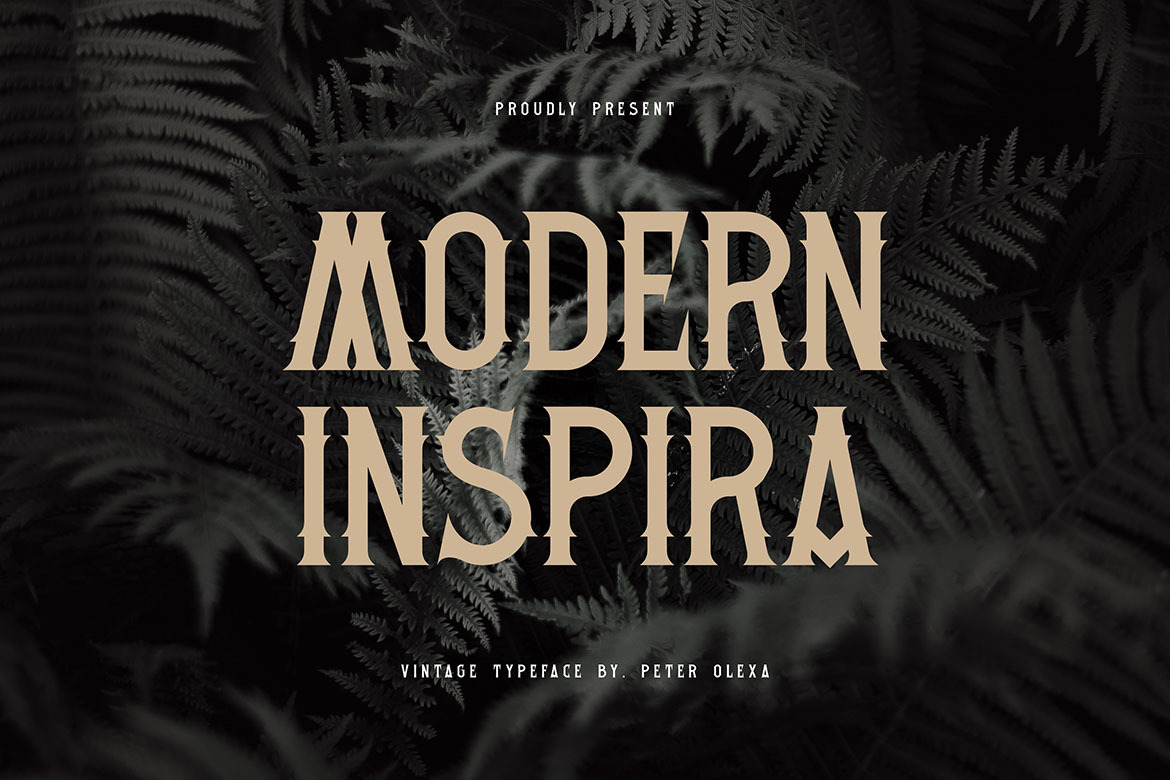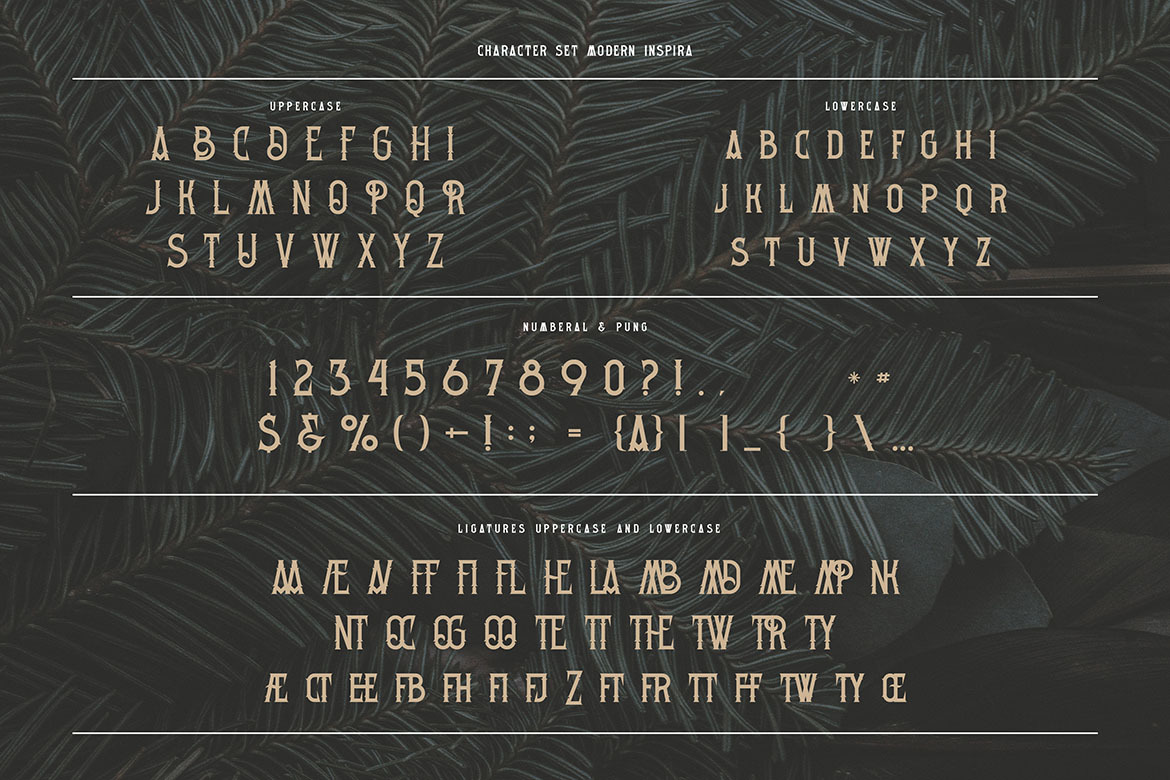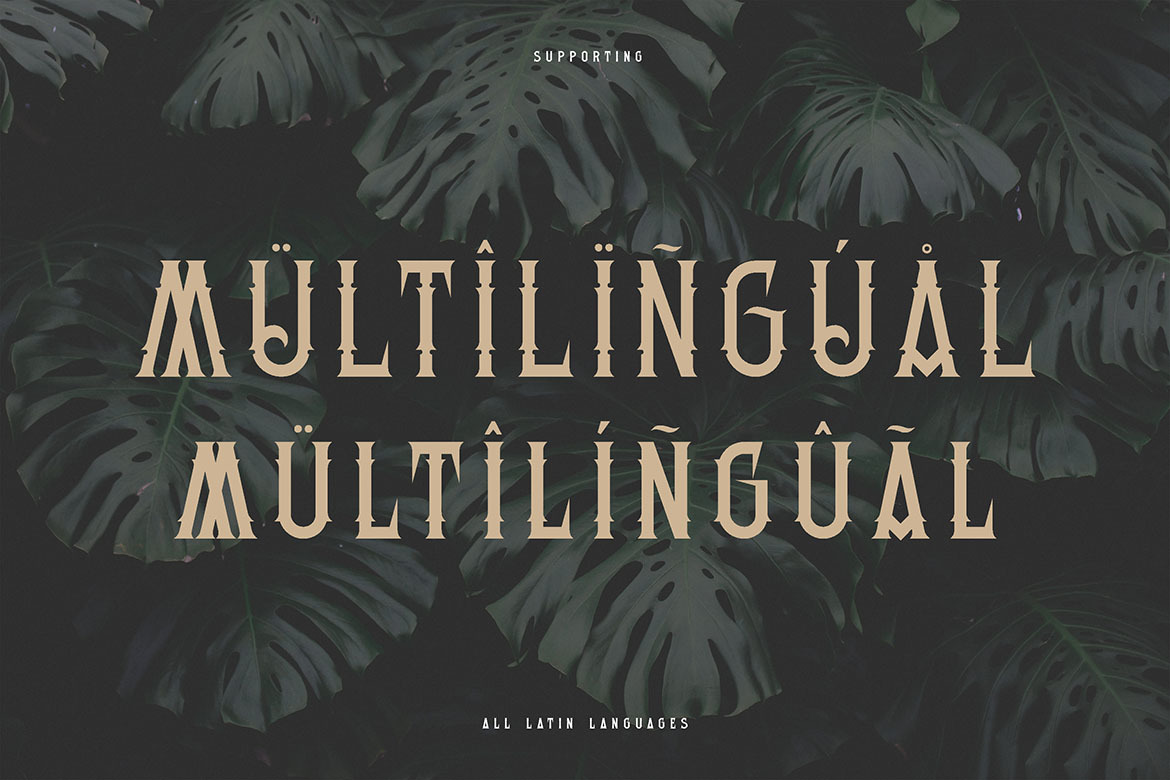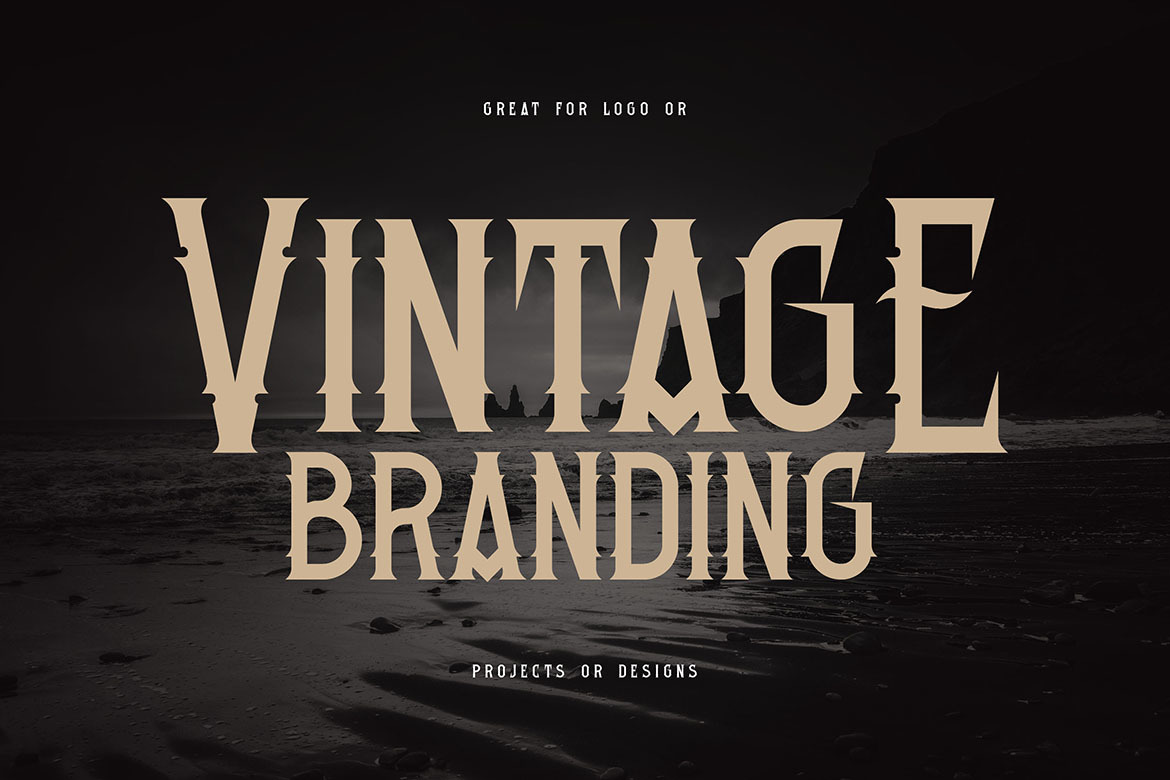
Modern Inspira Vintage Font
Unique retro, decorative & bold serif font. Comes with multilingual support & ligatures - great for your new logo or branding project.
-Multilingual support
-Ligatures
-Great for retro or vintage style branding projects